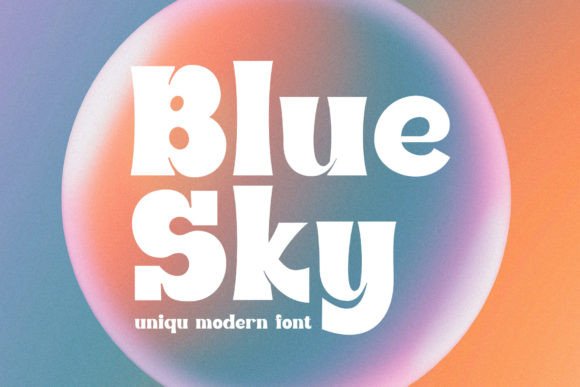
The Sky’s the Limit: Unleashing the Power of Blue Sky Font
I still remember the design project that led me to discover Blue Sky Font. I was working on a children’s party invitation, and I needed a font that would capture the excitement and playfulness of the event. After hours of scrolling through font libraries, I stumbled upon Blue Sky – and it was love at first sight! ✨ With its lively curves and dynamic letterforms, this font instantly brought the party to life. In this article, I’ll share my experience with Blue Sky Font, its unique features, and how to make the most of it in your designs.
An Honest Review of Blue Sky Font
• ✨ Playful and energetic vibe: Blue Sky Font is perfect for designs that require a burst of fun and optimism.
• ✅ Ease of use: This font is incredibly easy to read, even at smaller sizes, making it versatile for various design projects.
• 💥 Attention-grabbing: The bold and dynamic letterforms ensure your design stands out from the crowd.
While Blue Sky Font is amazing, there are a few things to keep in mind: 🤔
• ⚠️ Legibility at very small sizes: While generally easy to read, Blue Sky Font might become a bit tricky to read at very small sizes (below 10pt). Use it at larger sizes for optimal impact.
• ⚠️ Limited formal applications: Due to its playful nature, Blue Sky Font might not be the best fit for formal or professional projects that require a more serious tone.
The Designer Inspiration Behind Blue Sky Font
The creator of Blue Sky Font, inspired by clear blue skies and sunny days, aimed to bottle up the feeling of endless possibilities and optimism. This font is a reflection of their love for adventure and creative expression.
Font Name Blue Sky Font
Author Graphicxell
Q: What type of projects is Blue Sky Font best suited for?
A: Blue Sky Font is perfect for designs that require a playful and energetic vibe, such as children’s party invitations, event posters, and branding materials for creative businesses.
Q: Is Blue Sky Font available in different weights or styles?
A: Currently, Blue Sky Font comes in a single bold style. However, you can experiment with different sizes, colors, and OpenType features to create variations.